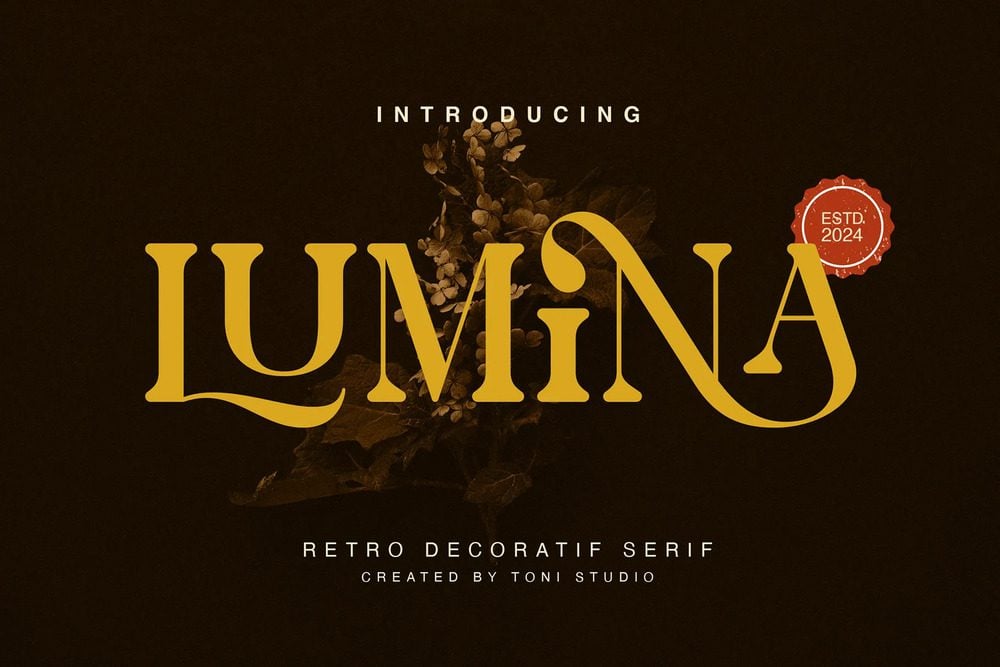
Lumina Font
LUMINA is a modern retro vintage font that is classy fun, unique and versatile. With a soft and warm aesthetic, this typeface effortlessly captures the essence of confidence, making it a great choice for your typography needs. complete with alternative characters that you can combine to get curves and shapes that can beautify your design. Whether to decorate a logo, packaging, restaurant graphics, or any display application, this versatile typeface stands out in titles and short text.